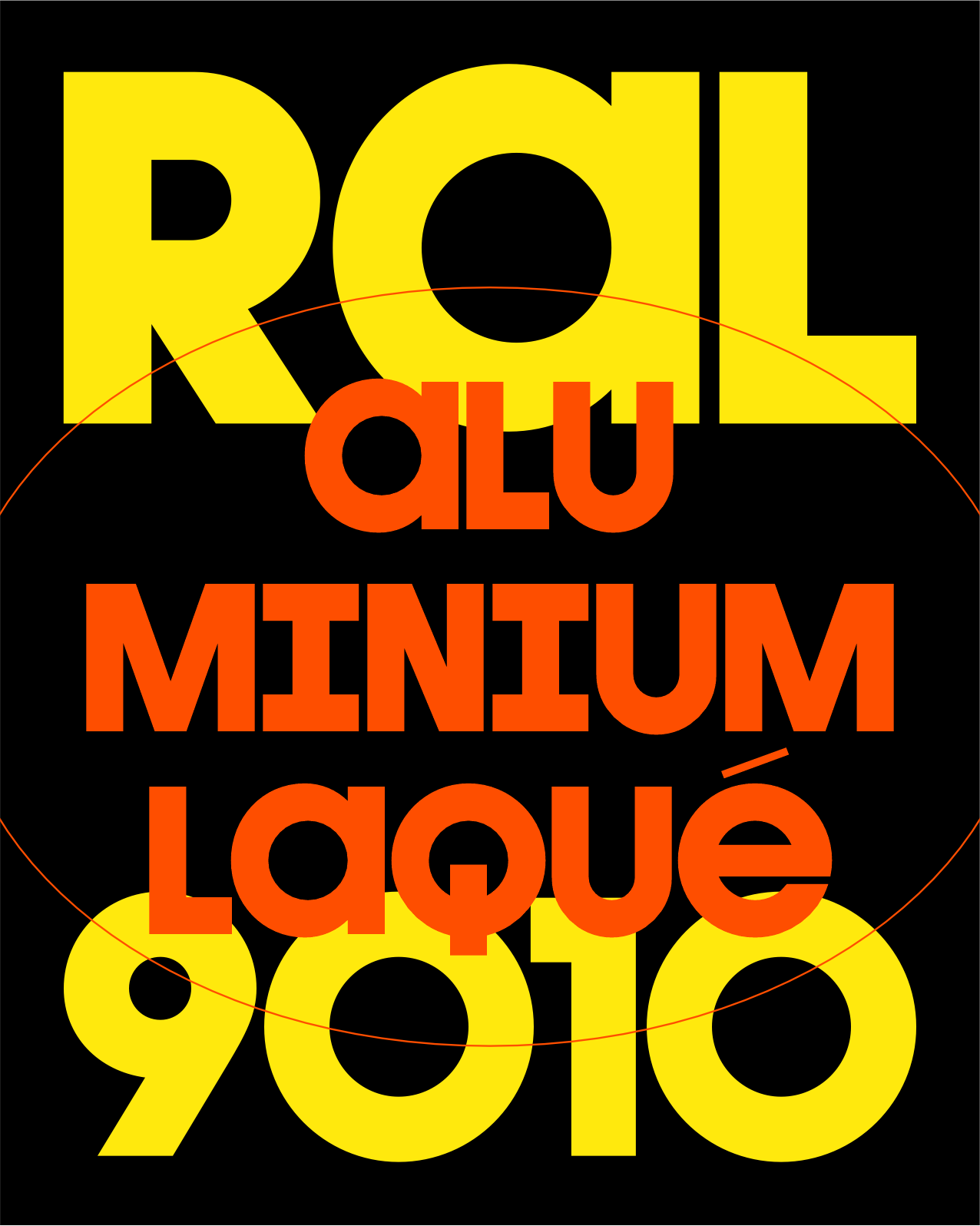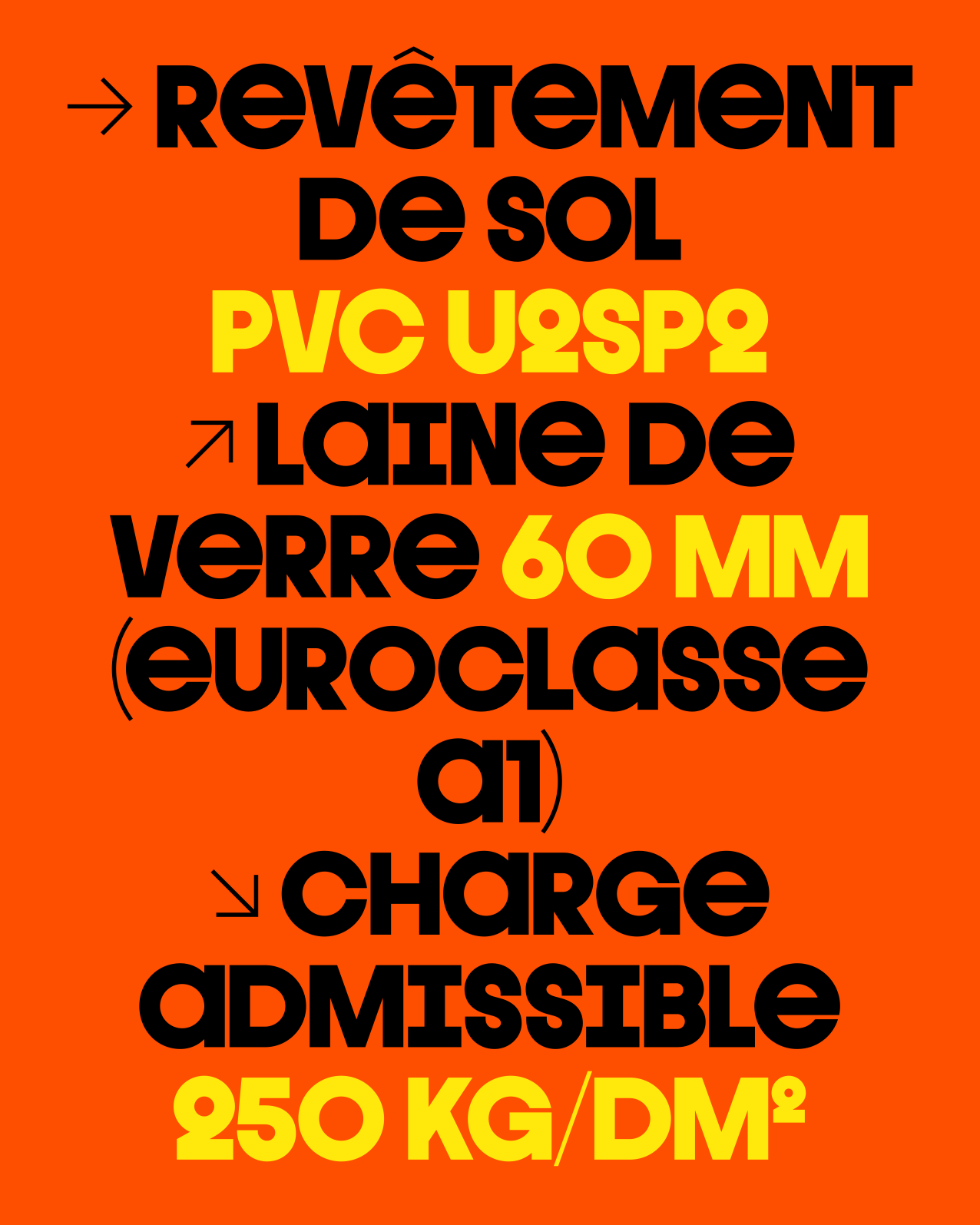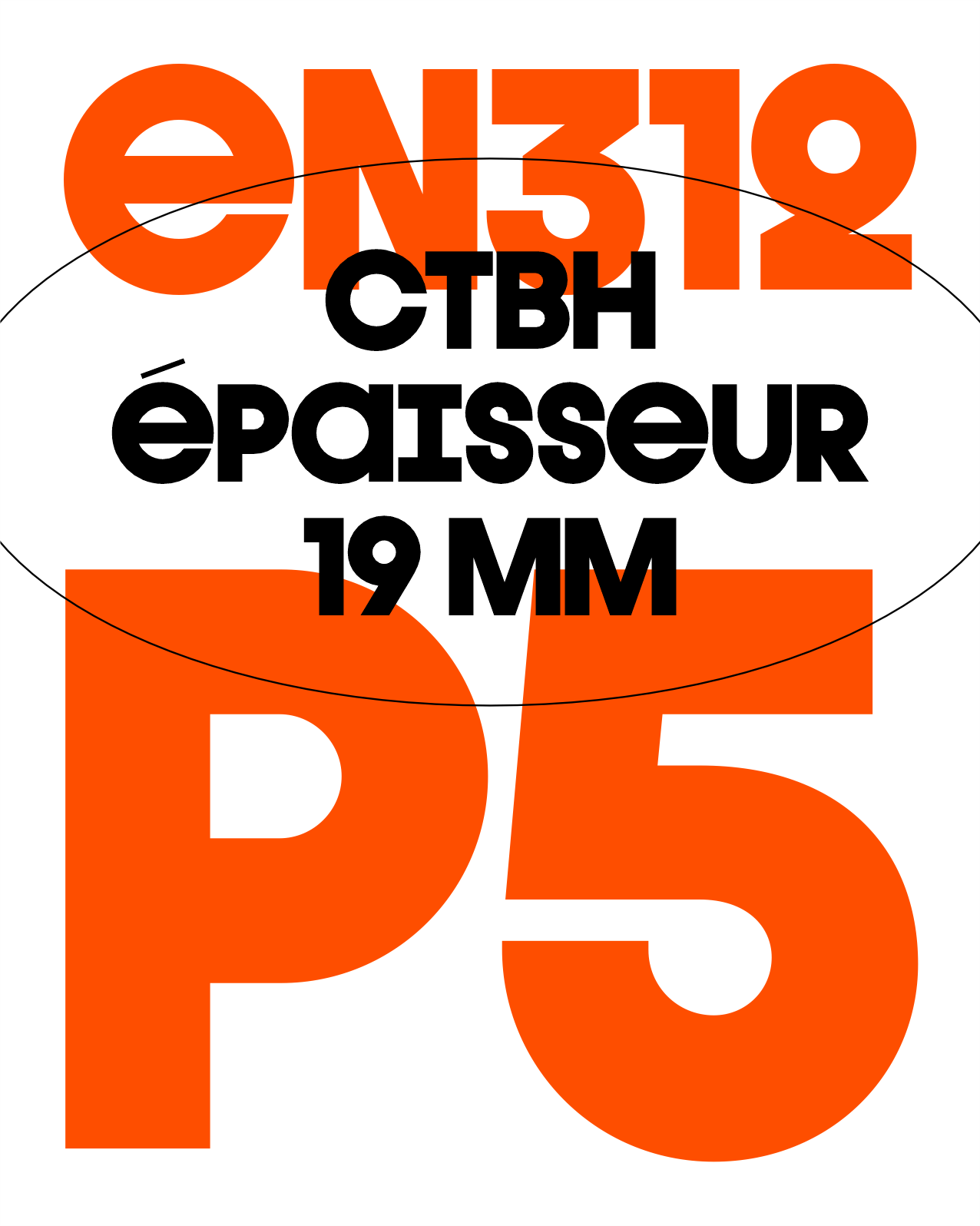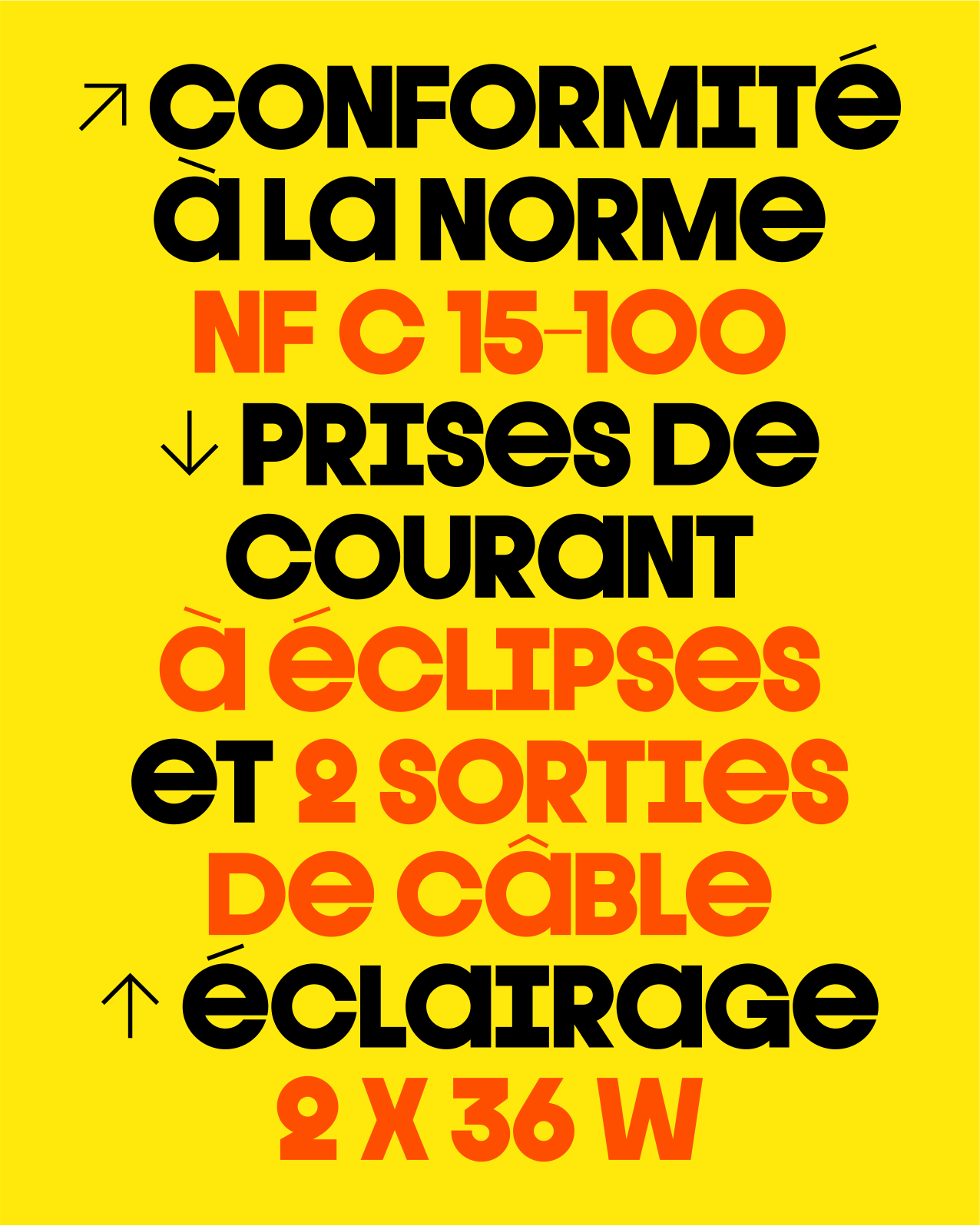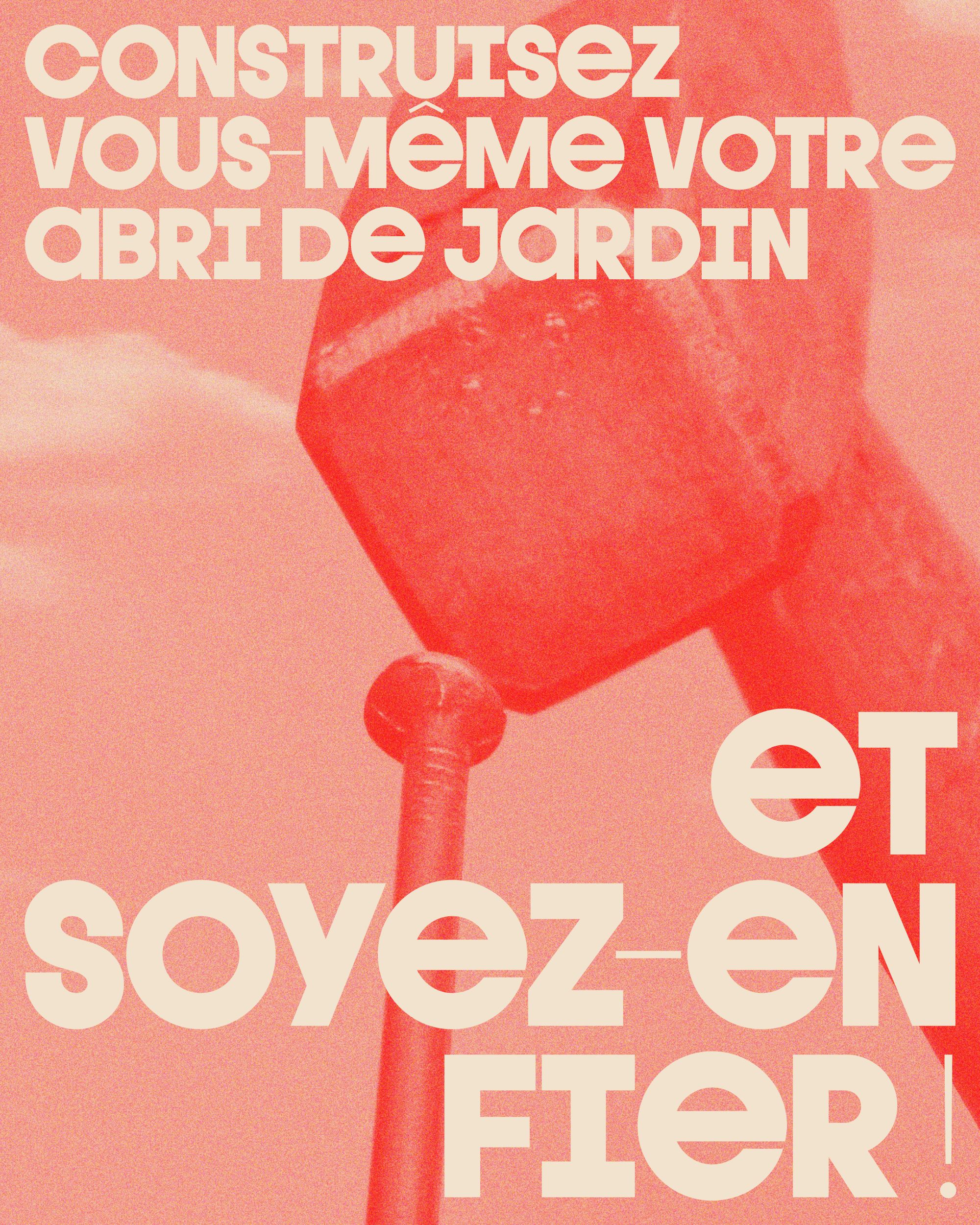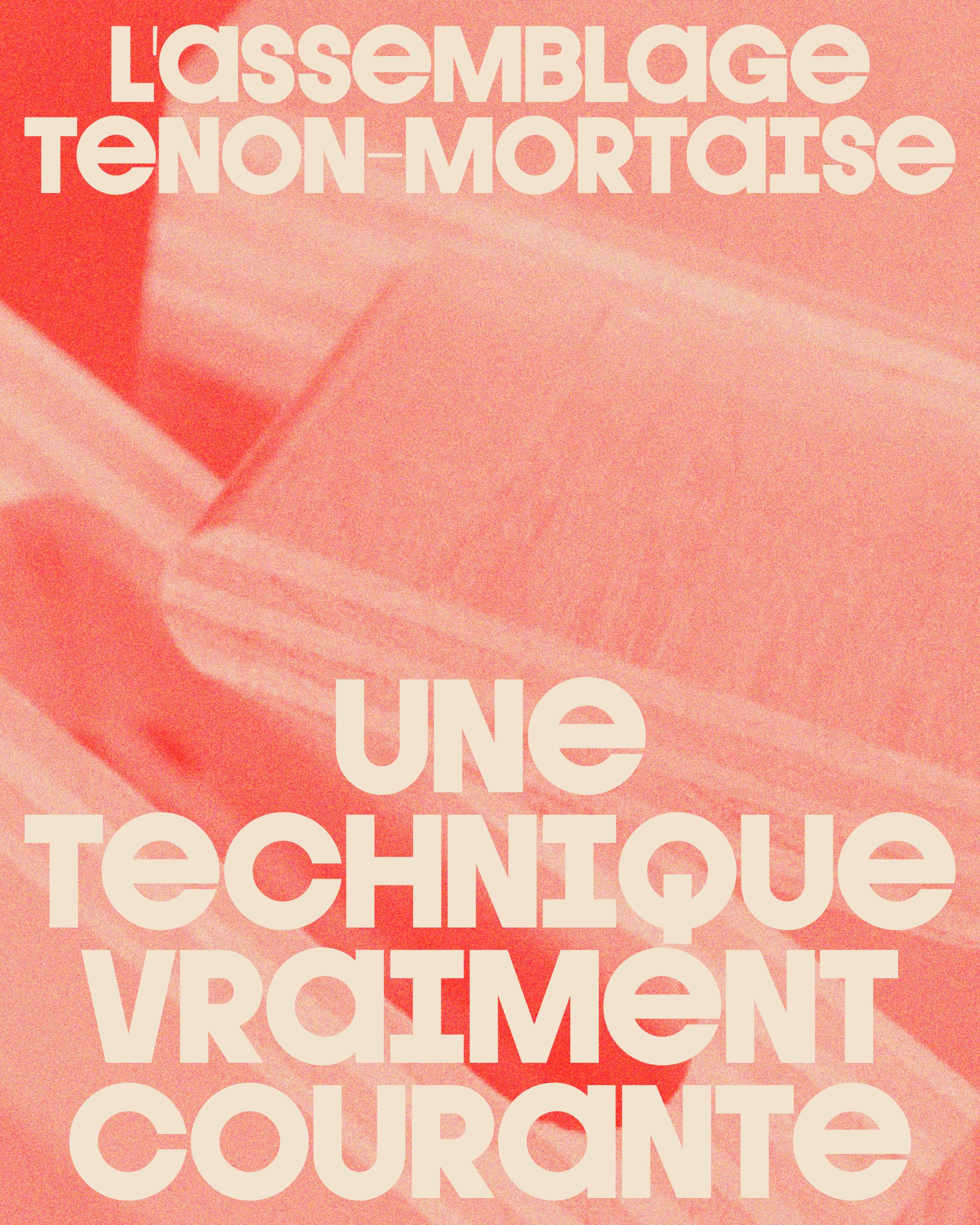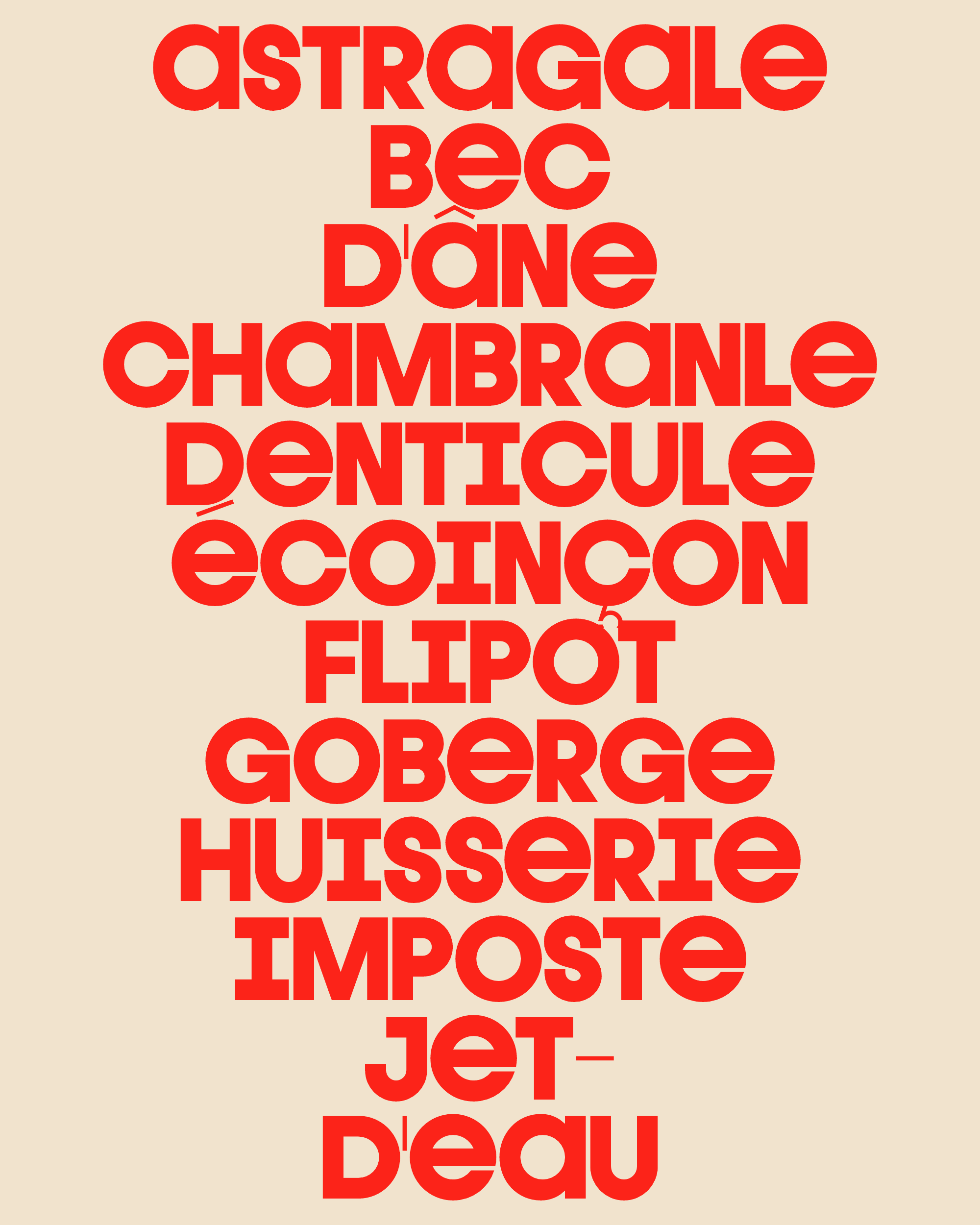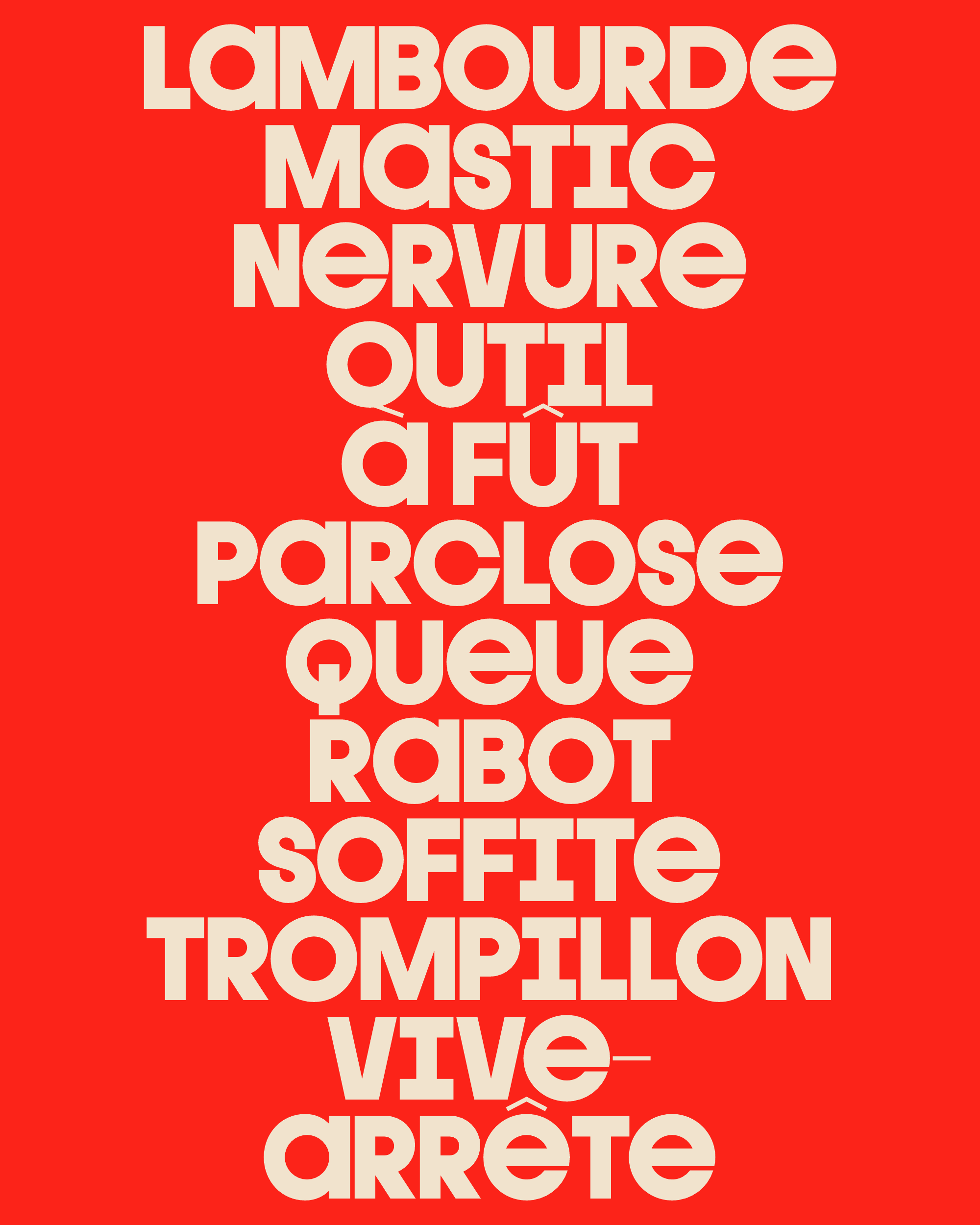
Varlope
Varlope is a typeface originally developed for Losanje, an upcycled textile player. Its natural charisma and balance are inspired by the geometric linĂ©ales of the 1970s. It’s a solid unicase with 2 variants, offering very pronounced contrasts on a large number of glyphs. Not fussy, reliable and a real workhorse.